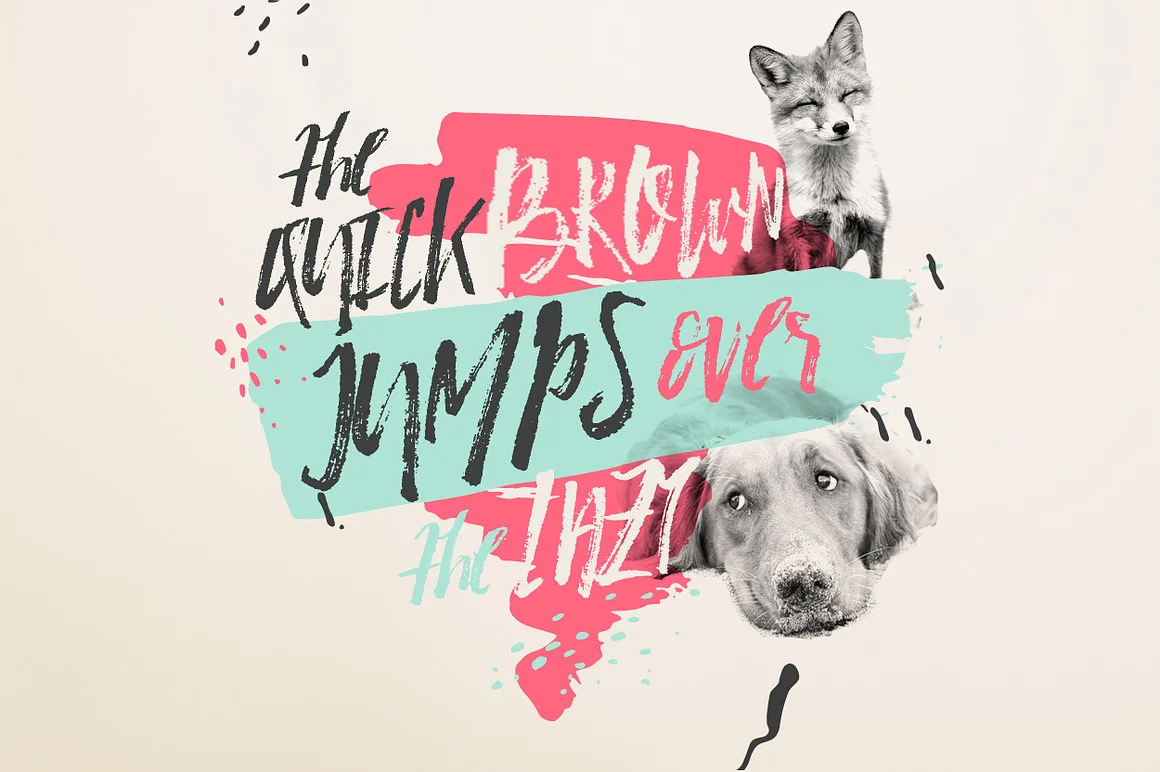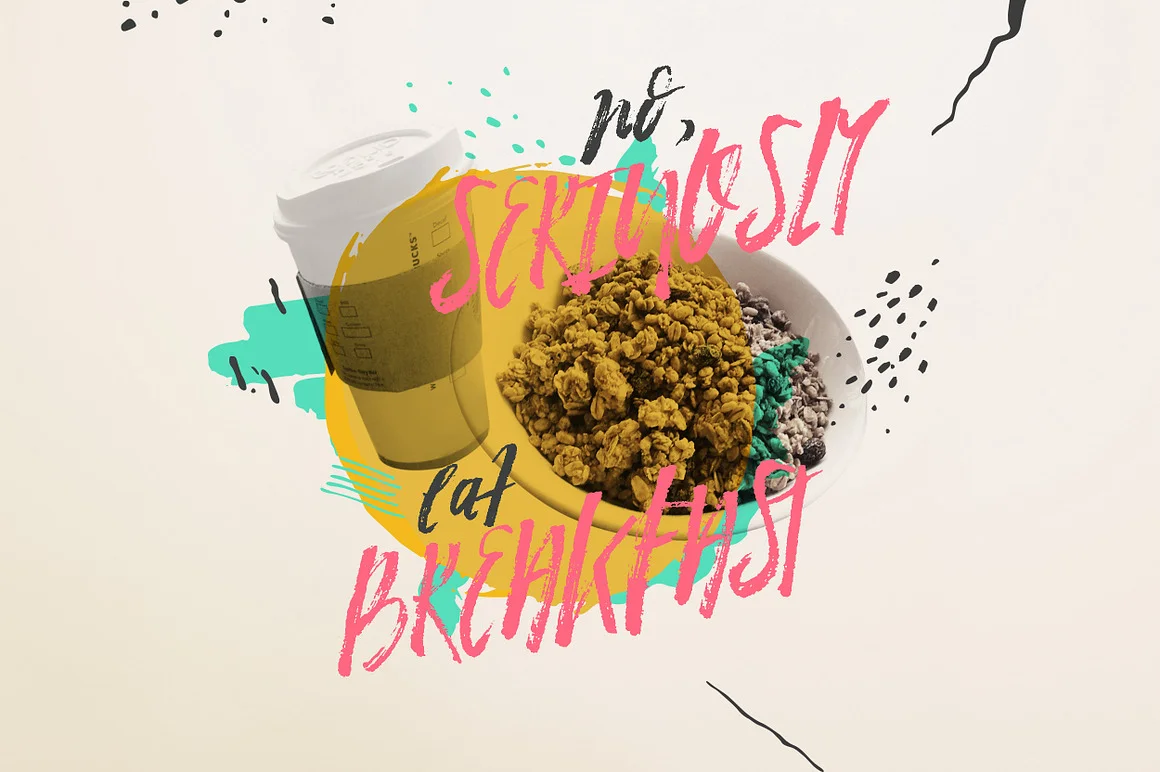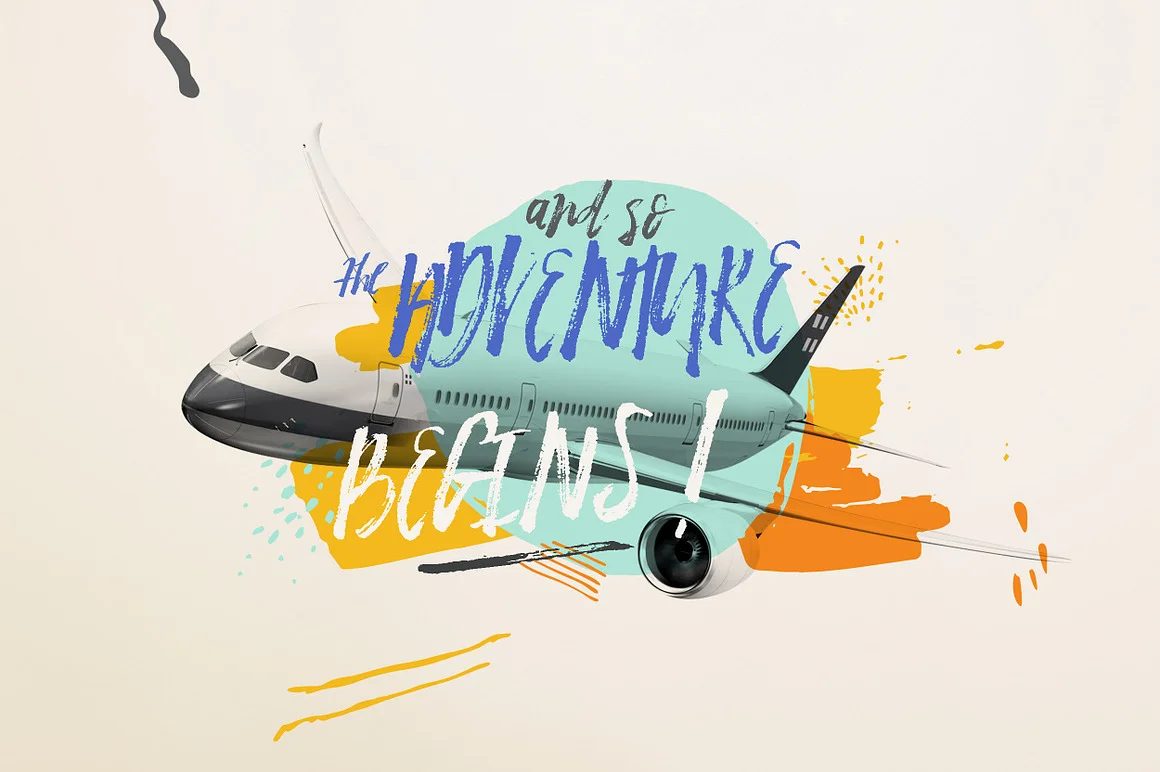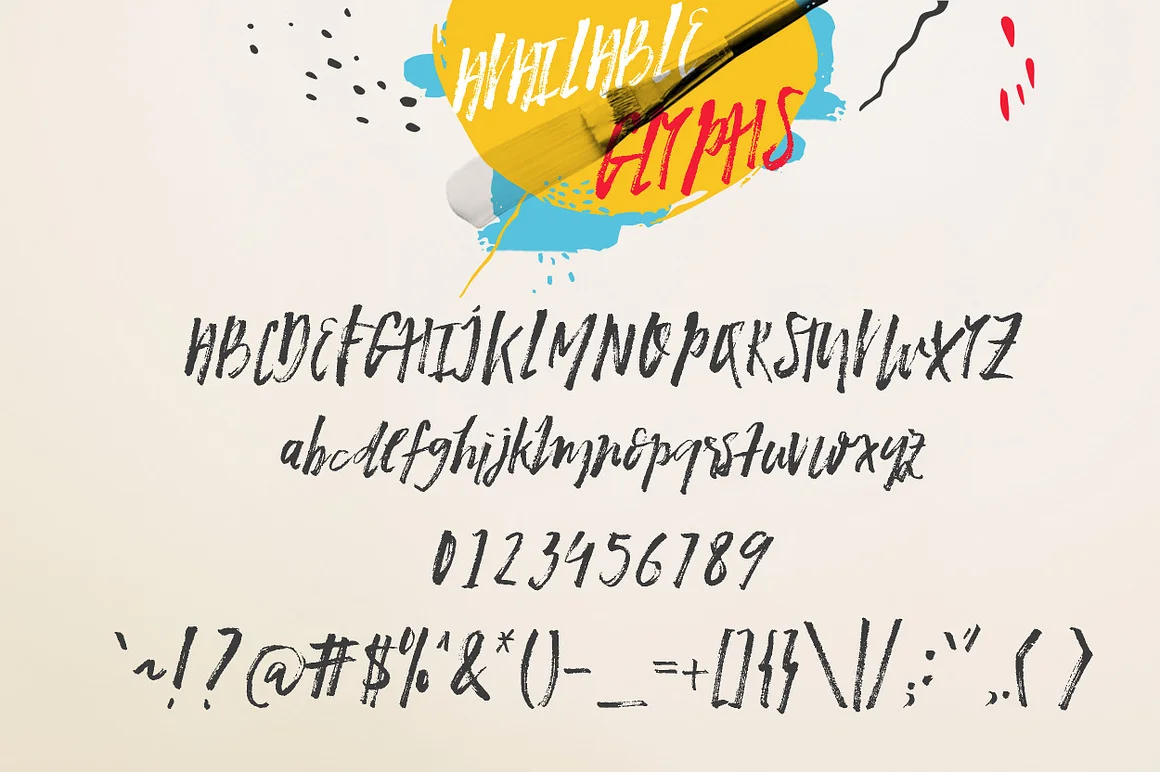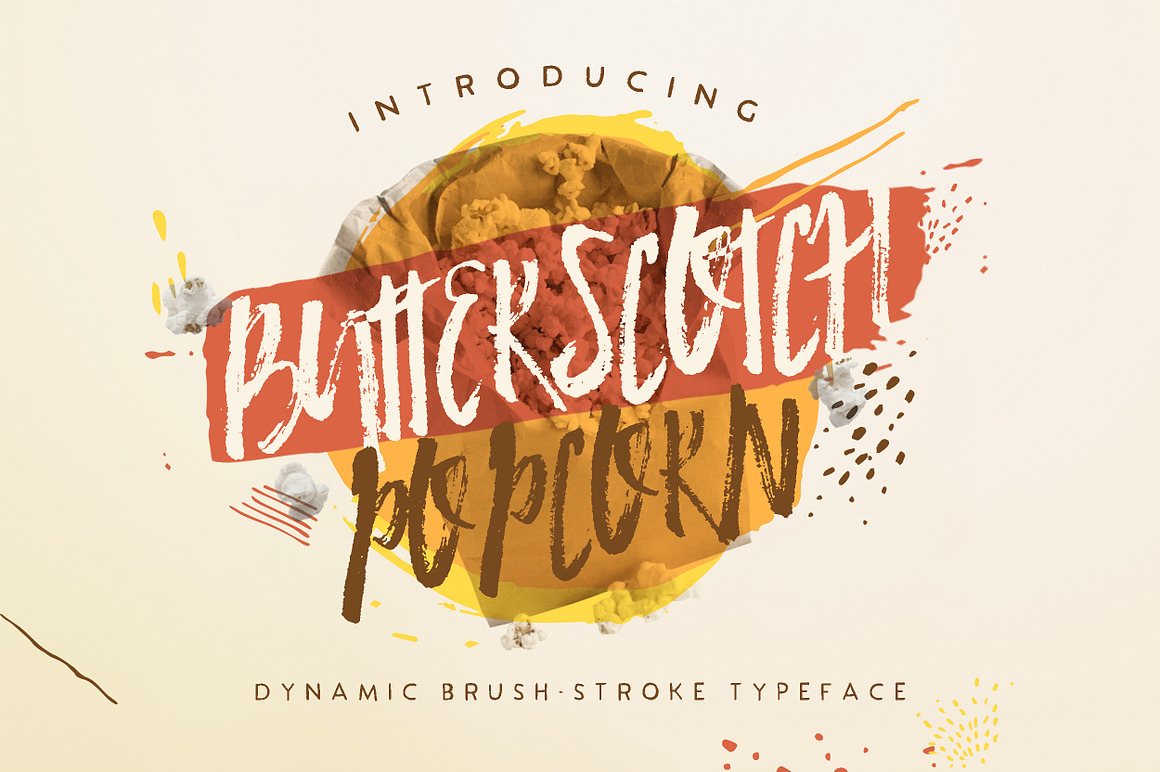
Butterscotch Popcorn Script Font
This Butterscotch Popcorn Script Font is perfect for vintage candy shop branding, retro popcorn stand signage, nostalgic movie theater materials, old-fashioned carnival promotions, sweet treat packaging, vintage confectionery labels, classic cinema graphics, nostalgic snack bar communications, retro fair ground designs, and whimsical sweet indulgence applications.
What makes this Butterscotch Popcorn Script Font exciting is its nostalgic sweetness that captures the golden charm and carnival magic of classic movie theater treats and vintage confectionery excellence. The font features playful script letterforms with sweet characteristics that convey nostalgic delight, carnival joy, and vintage charm. Its whimsical character and treat-inspired design make it ideal for brands seeking to communicate sweet nostalgia, carnival excitement, and vintage confectionery excellence in entertainment and food markets.
The Butterscotch Popcorn Script Font family includes regular, medium, and bold weights with carnival alternates, vintage variants, and sweet flourishes. This comprehensive nostalgic font family provides designers with charming typographic tools to create delightful compositions while maintaining the vintage character essential for confectionery brands and entertainment communications.
Cinema companies and confectionery businesses consistently choose Butterscotch Popcorn Script Font for projects requiring authentic vintage appeal and nostalgic sweetness credibility. This font's distinctive whimsical character perfectly captures the carnival excellence and sweet nostalgia that resonate with audiences who appreciate vintage entertainment, classic treats, and brands that embody nostalgic charm and carnival magic.
The delightful construction of Butterscotch Popcorn Script Font showcases playfully designed letterforms with carnival proportions that ensure exceptional charm across all entertainment applications. Its sweet appearance and nostalgic character create memorable impressions while maintaining the readability necessary for effective vintage communication and confectionery materials.
Professional designers appreciate how Butterscotch Popcorn Script Font brings immediate vintage authenticity and carnival charm to brand communications. The font's whimsical nature allows organizations to communicate sweet excellence and nostalgic entertainment while maintaining the professional quality necessary for effective positioning in vintage entertainment and confectionery markets.
The enchanting appeal of Butterscotch Popcorn Script Font makes it particularly effective for brands emphasizing vintage sweetness, carnival nostalgia, and classic entertainment charm. Its playful character resonates strongly with audiences who appreciate nostalgic treats, carnival experiences, and brands that represent the golden sweetness and whimsical magic of vintage confectionery achievement.
Whether developing branding for vintage movie theaters or creating materials for nostalgic confectionery companies, Butterscotch Popcorn Script Font provides the charming typographic foundation that vintage brands need to communicate their sweet excellence, carnival nostalgia, and the whimsical delight that defines vintage entertainment and nostalgic confectionery achievement.